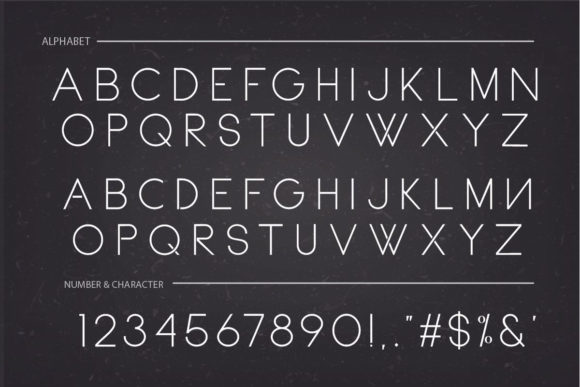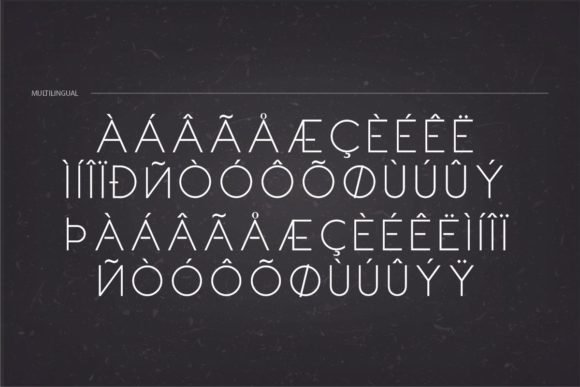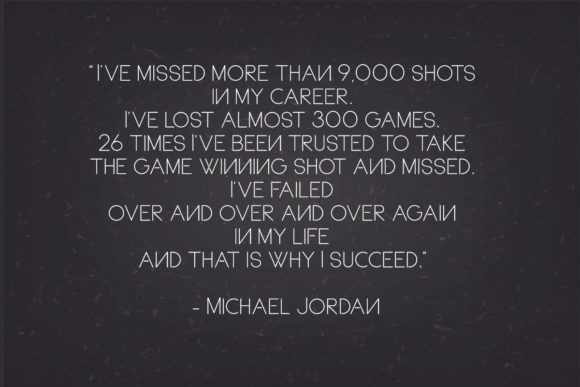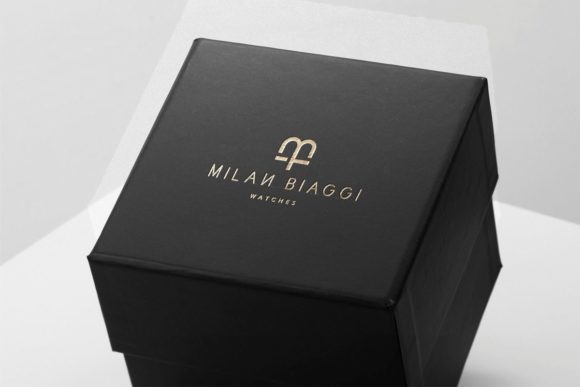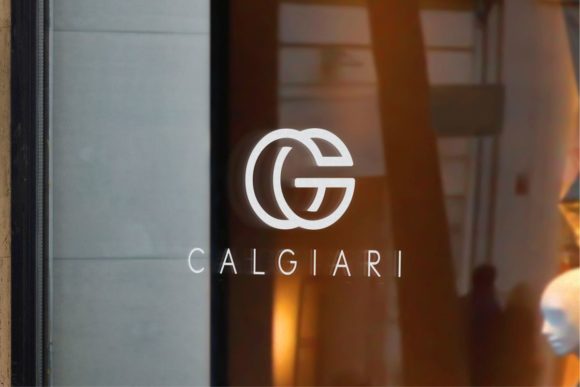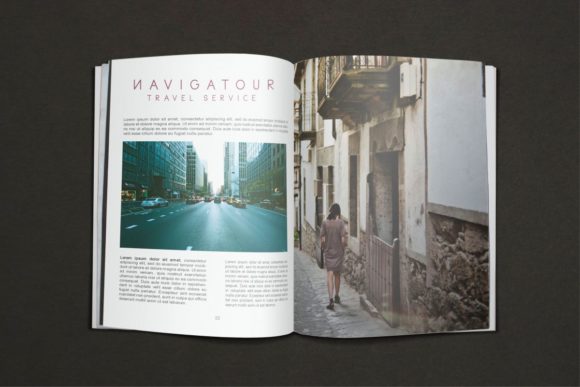
Unleash Your Creativity with Axilia Font
Remember the thrill of staring at a blank page, surrounded by scribbled notes, scattered ideas, and a lingering sense of uncertainty? It’s a familiar feeling for many creatives. But what if you had the perfect tool to bring your vision to life? Meet Axilia Font, a sleek and modern sans serif font designed to elevate your projects and leave a lasting impression.
Axilia Font is more than just a font – it’s a versatile companion that can be tailored to fit a wide range of creative endeavors. Whether you’re crafting a logo, designing a brochure, or building a website, Axilia Font is the perfect match. Its minimalistic design ensures that your message shines through, unobstructed by unnecessary embellishments.
For designers, Axilia Font represents a valuable asset that can elevate their work and set them apart from the competition. By incorporating this stylish font into your projects, you’ll be able to create visually striking designs that capture attention and spark engagement.
Axilia Font Key Features
- Font Family: Axilia is a sans-serif font family.
- Font Size: Offers a range of font sizes, including Extra Light (100-200), Light (200-300), Regular (300-400), Medium (400-500), Demi (500-600), Bold (600-700), and Extra Bold (700-800) weights.
- Unique Characteristics: Axilia features clean lines, geometric shapes, and a modern aesthetic, making it suitable for various design applications, including digital products, corporate branding, and publishing.
Review of Axilia Font
Overall, I think Axilia Font is a solid addition to any designer’s toolkit. It has a unique blend of modern and minimalist styles that can elevate a wide range of projects.
- Unique character shapes and letterforms make it perfect for branding and logotype projects.
- The font is highly legible, even at small sizes, making it ideal for digital and print applications.
- The condensed and expanded variations offer a lot of flexibility for designers to work with.
- The font is well-suited for both formal and informal projects, from corporate reports to fashion branding.
- The font may not be the best choice for projects that require a lot of emphasis on bold, dramatic effects.
- The condensed and expanded variations can sometimes make the font feel a bit generic.
- The font’s subtlety can make it difficult to read in low-light conditions.
In conclusion, while Axilia Font has some limitations, I think it’s a great choice for designers who want a versatile and highly legible font for a wide range of projects.
Tip: Use Axilia Font for headings and titles to create a cohesive and modern look.
Tip: Use Axilia Font in conjunction with bold and italic styles to create emphasis and hierarchy.
Tip: Use Axilia Font consistently throughout your presentation or document to create a professional and cohesive look.
Axilia Font is suitable for:
- Modern and minimalist designs.
- Professional and corporate branding.
- Editorial and publishing content.
Remember to use Axilia Font in conjunction with other design elements to create a visually appealing and effective design.
Alternatives to Axilia Font
Montserrat is a sans-serif font designed for digital use. It’s a great alternative to Axilia Font when you need a modern, urban feel for your designs. Montserrat is more geometric and has a stronger structure compared to Axilia Font, making it ideal for headings and titles.
Lato is a sans-serif font that’s highly legible and versatile. It’s a good choice when you need a clean and elegant font that’s easy to read. Lato is more rounded and has a softer feel compared to Axilia Font, making it suitable for body text and paragraphs.
Open Sans is a popular sans-serif font that’s highly legible and neutral. It’s a great alternative to Axilia Font when you need a font that’s easy to read and works well in both digital and print media. Open Sans is more open and has a cleaner feel compared to Axilia Font, making it ideal for body text and user interfaces.
Q: What is the recommended font size for using Axilia Font in print and digital media?
The recommended font size for Axilia Font varies depending on the application and medium. For print media, we recommend using font sizes between 9pt and 24pt. For digital media, such as websites and mobile apps, we recommend using font sizes between 14px and 24px. However, the optimal font size will depend on the specific design and layout requirements of your project.